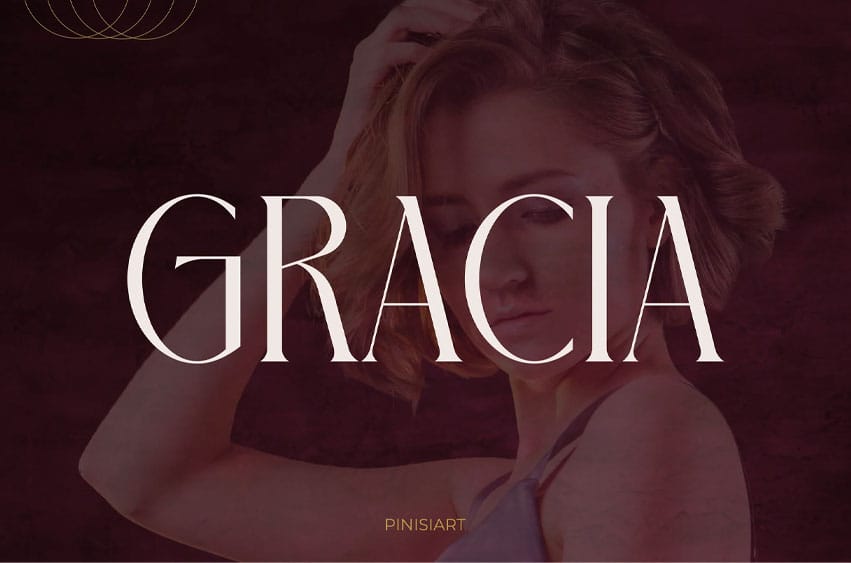
Gracia Font is a refined high-contrast serif that blends timeless editorial sophistication with modern proportional balance. Its graceful curves, sculpted serifs, and harmonious letter spacing create an elegant rhythm on the page, making it ideal for luxury branding and high-fashion visuals. Designed with tall, confident proportions and crisp contrast, GRACIA exudes poise while remaining highly legible—perfect for fashion magazines, Instagram campaigns, or premium packaging.
If your goal is to create branding that commands attention while communicating taste and refinement, GRACIA delivers. From high-end product launches to runway-inspired social media posts, its couture-like details and polished structure bring an upscale, editorial edge to your designs. Whether for a fashion house, beauty brand, or exclusive event promotion, GRACIA ensures your typography stands out with confidence.
Key Features:Â Elegant Design Benefits :
- Creates a luxurious and memorable brand presence.
- Versatile for both display headlines and refined body copy.
- High-contrast forms are perfect for print and digital media.
Design Details:
- Tall, balanced proportions for a modern yet classic look.
- Crisp serifs that add authority without overpowering the text.
- Optimized kerning for both large-format and small-scale use.